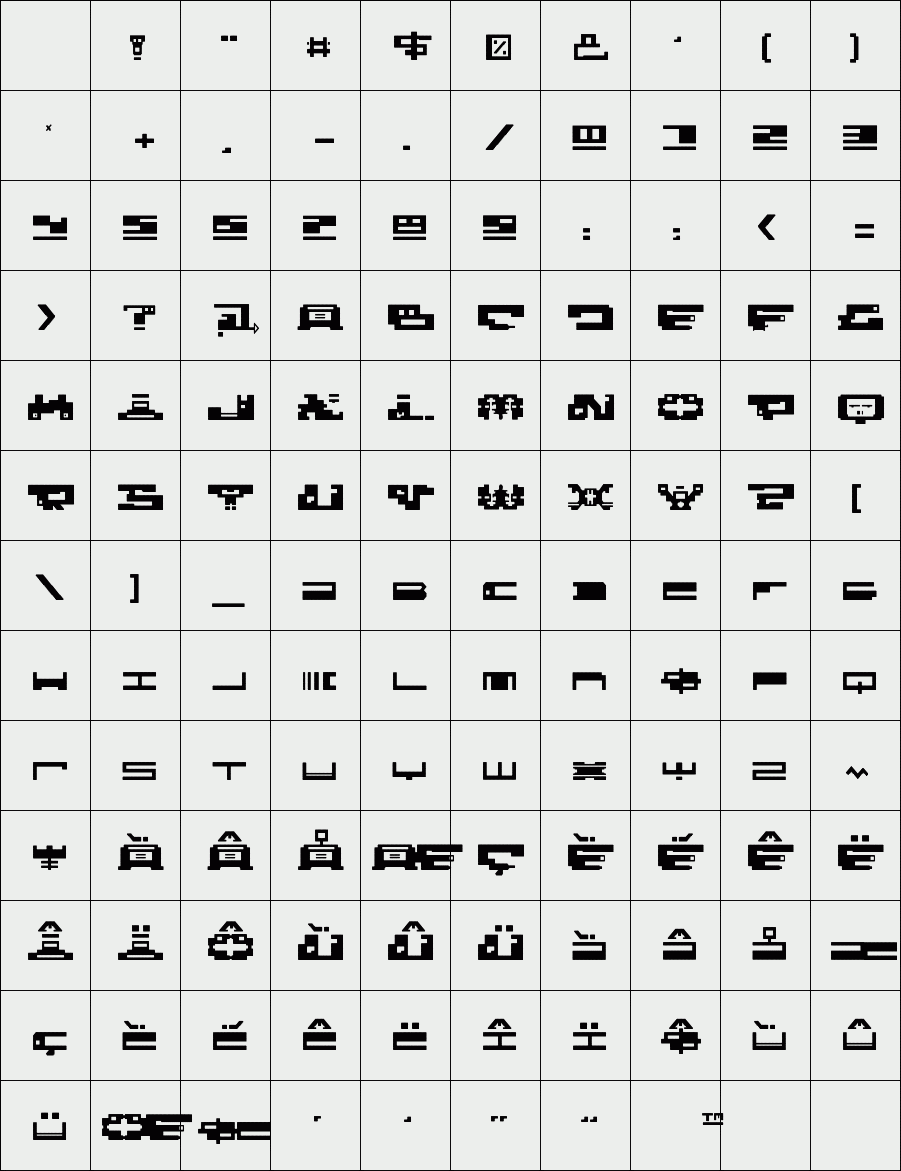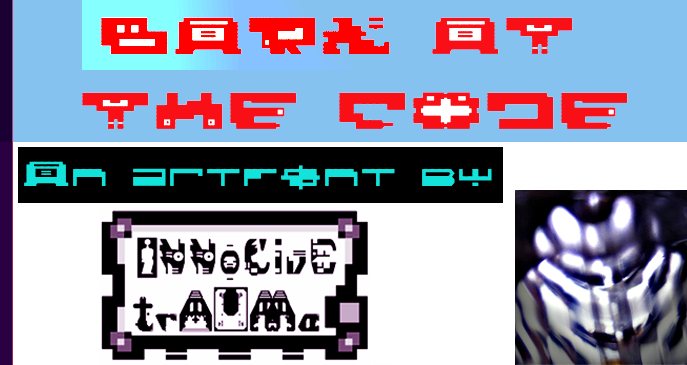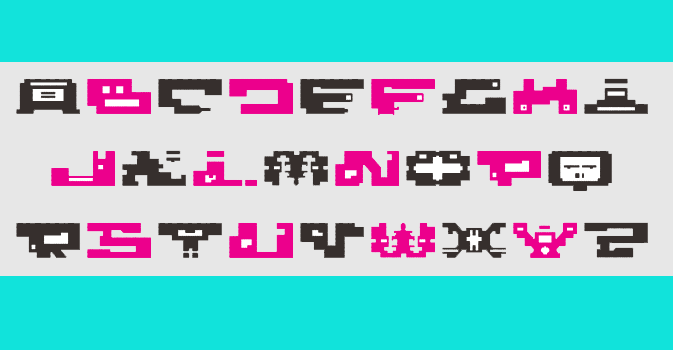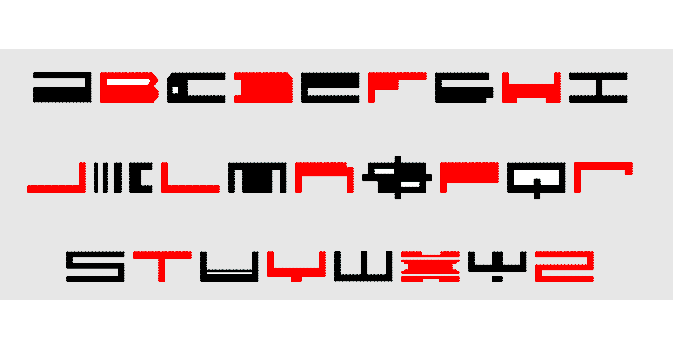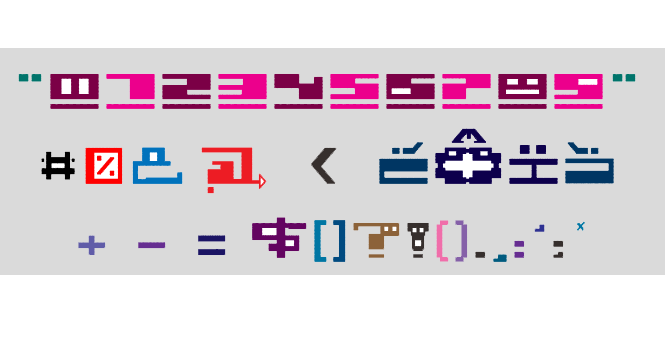
trAUMa 98 / Bark At The Code
"Bark At The Code", like all the "trAUMa" series, works at the frontier between Art & Type Design, Figuration & Abstraction, each font is a comprehensive world in which every glyph is a "living" entity. But put together they can produce your messages in the most accurate way.